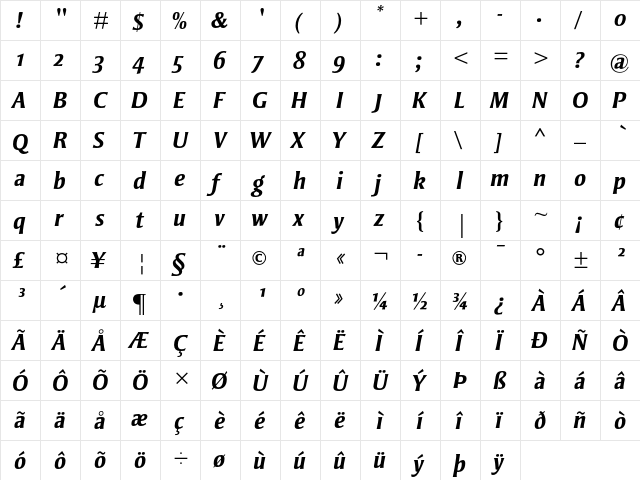
Strayhorn MT Bold Italic SC
Design Context for Strayhorn MT Typeface
Strayhorn MT is a composed and adaptable typeface that performs quietly and consistently across a wide range of design contexts. The slanted form adds forward momentum and visual energy. Its bold stroke weight gives it real presence on the page.
Pro Tip: Try Strayhorn MT for annotation and caption copy alongside an upright companion — the contrast in angle creates a dynamic but ordered typographic system.